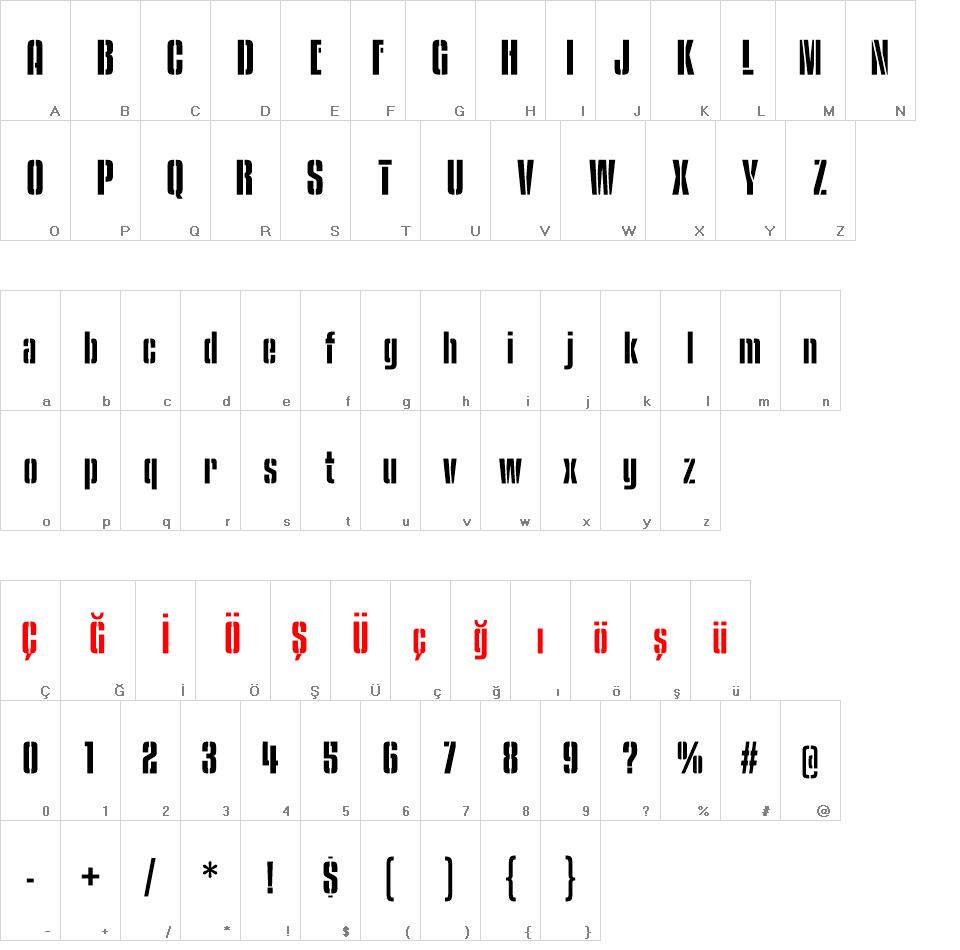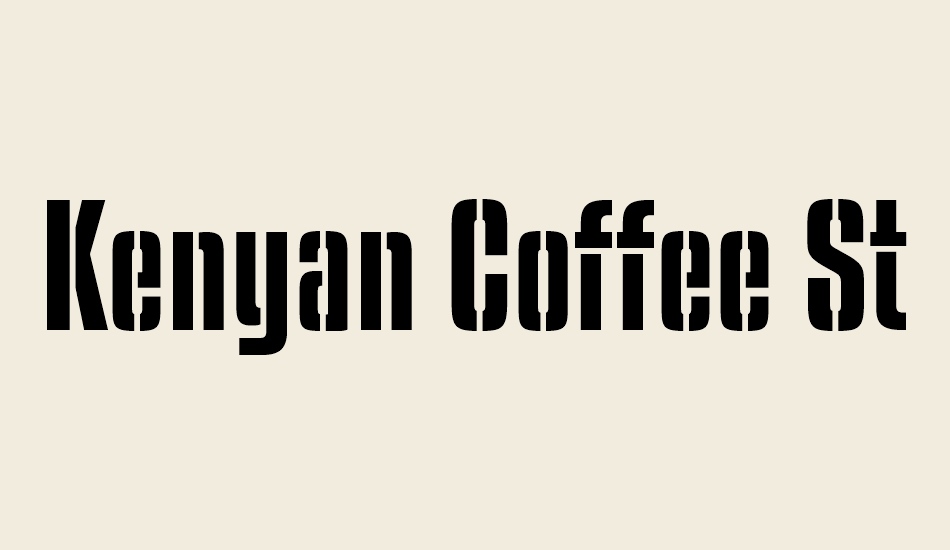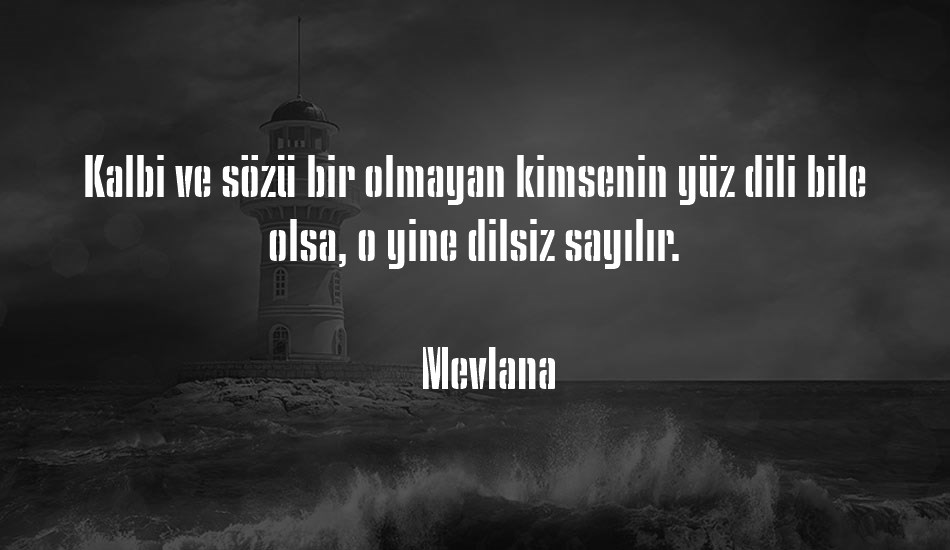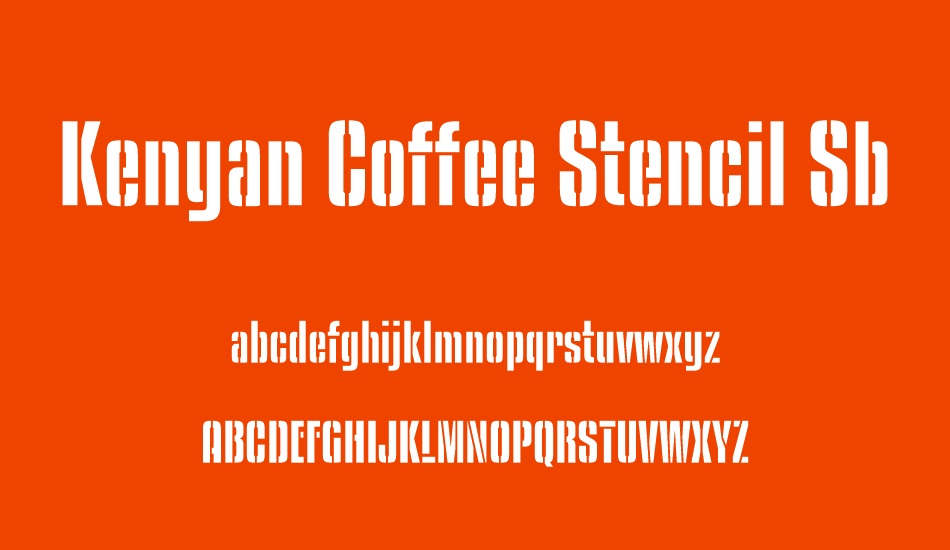
Kenyan Coffee Stenci font
Kenyan Coffee Stencil a headliner based on the late 1990’s typeface by the same name. Kenyan Coffee has a hybrid industrial/deco style which is perfectly suited to stencilization. Almost all current Latin based languages are supported, including Vietnamese, Cyrillic languages and Greek.
Kenyan Coffee Stencil Sb font